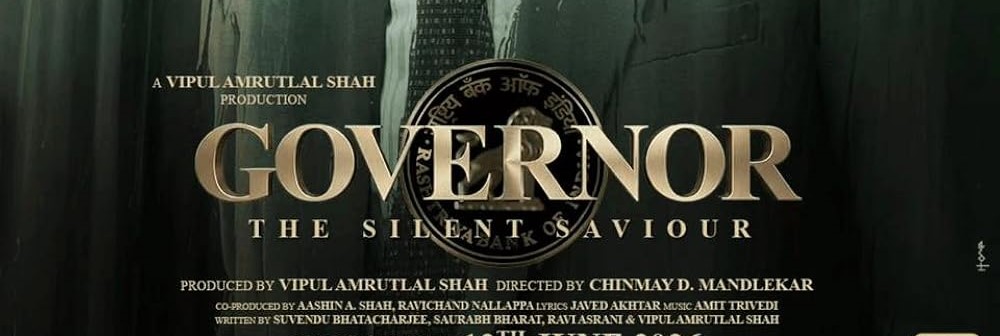
Governor Font
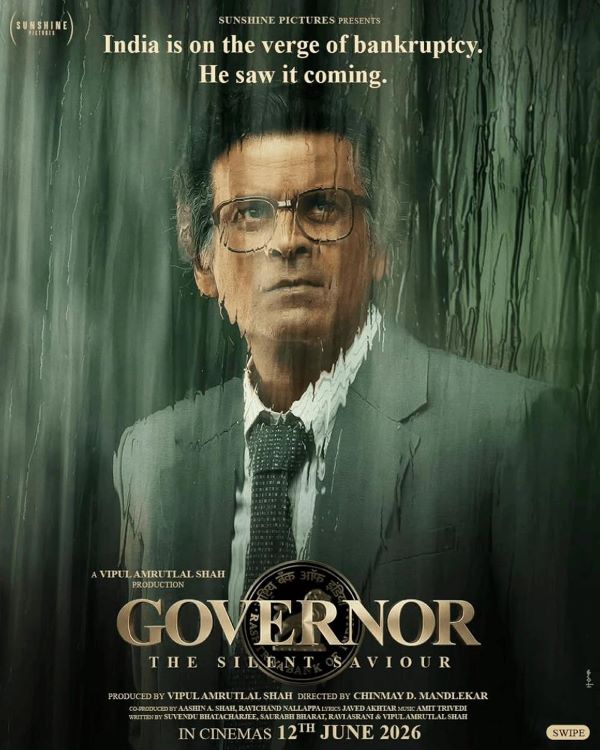
Governor font is the bold display font used in the title treatment of the Indian film Governor: The Silent Saviour, a gripping drama that follows A. Ramanan, a man appointed as RBI Governor at the height of India’s devastating 1990s economic crisis — thrust into an impossible mission to rescue the nation from total financial collapse while every pillar of the system conspires against him. The typeface is believed to be Newton Bold, a commercial serif font designed by Vladimir Yefimov and Alexander Tarbeev and published by ParaType — its strong, authoritative letterforms perfectly suited to a story about power, duty, and silent heroism.